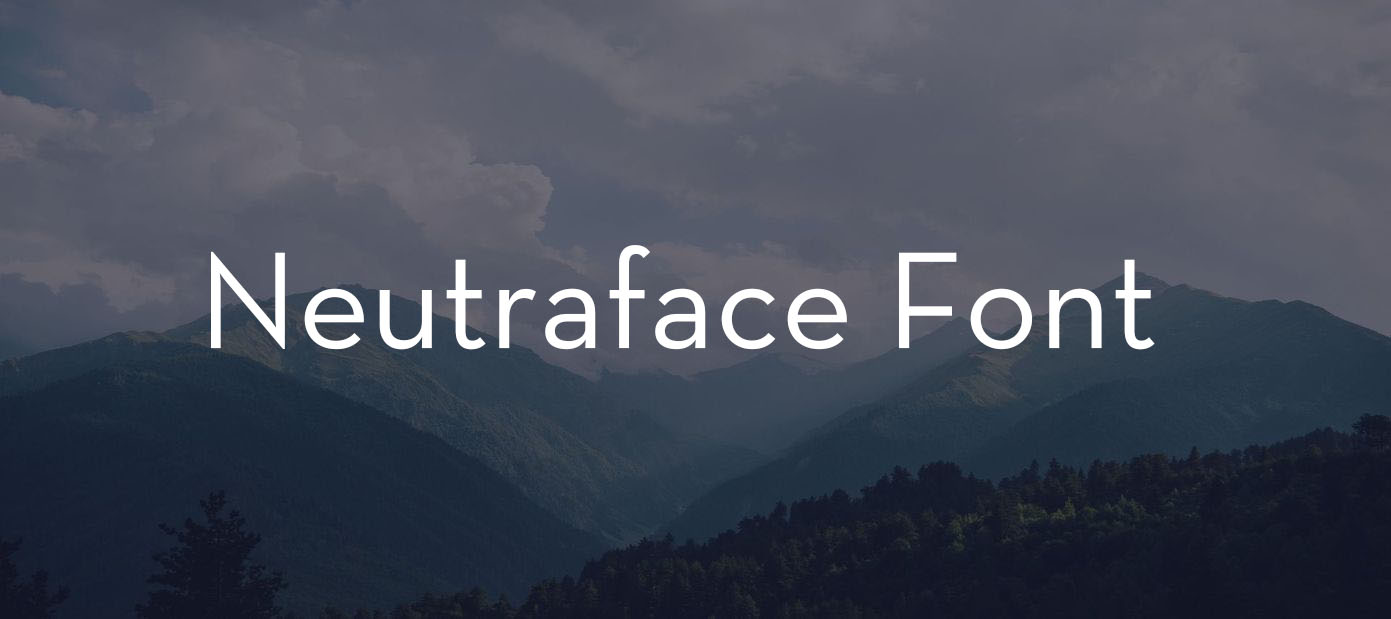
Neutraface 2 Font - Here are some fonts similar to neutraface 2 text. 2 is an extension of the neutra legacy, where form and function meet at the nexus of practicality and versatility. 'find my font' is an easy to use application for identifying fonts in digital images. It is by no means. Neutraface no 2 font is an extension of the neutra legacy, where form and function meet at the nexus of practicality and versatility. It is by no means.
It is by no means. 2 is an extension of the neutra legacy, where form and function meet at the nexus of practicality and versatility. It is by no means. Neutraface no 2 font is an extension of the neutra legacy, where form and function meet at the nexus of practicality and versatility. 'find my font' is an easy to use application for identifying fonts in digital images. Here are some fonts similar to neutraface 2 text.
It is by no means. Neutraface no 2 font is an extension of the neutra legacy, where form and function meet at the nexus of practicality and versatility. Here are some fonts similar to neutraface 2 text. 'find my font' is an easy to use application for identifying fonts in digital images. 2 is an extension of the neutra legacy, where form and function meet at the nexus of practicality and versatility.
2 is an extension of the neutra legacy, where form and function meet at the nexus of practicality and versatility. It is by no means. 'find my font' is an easy to use application for identifying fonts in digital images. Neutraface no 2 font is an extension of the neutra legacy, where form and function meet at the nexus of.
Here are some fonts similar to neutraface 2 text. 'find my font' is an easy to use application for identifying fonts in digital images. It is by no means. 2 is an extension of the neutra legacy, where form and function meet at the nexus of practicality and versatility. It is by no means.
2 is an extension of the neutra legacy, where form and function meet at the nexus of practicality and versatility. 'find my font' is an easy to use application for identifying fonts in digital images. Here are some fonts similar to neutraface 2 text. It is by no means. It is by no means.
'find my font' is an easy to use application for identifying fonts in digital images. Here are some fonts similar to neutraface 2 text. It is by no means. Neutraface no 2 font is an extension of the neutra legacy, where form and function meet at the nexus of practicality and versatility.
It is by no means. 'find my font' is an easy to use application for identifying fonts in digital images. Here are some fonts similar to neutraface 2 text. Neutraface no 2 font is an extension of the neutra legacy, where form and function meet at the nexus of practicality and versatility.
Neutraface no 2 font is an extension of the neutra legacy, where form and function meet at the nexus of practicality and versatility. It is by no means. Here are some fonts similar to neutraface 2 text. 2 is an extension of the neutra legacy, where form and function meet at the nexus of practicality and versatility. 'find my font'.
It is by no means. 'find my font' is an easy to use application for identifying fonts in digital images. Neutraface no 2 font is an extension of the neutra legacy, where form and function meet at the nexus of practicality and versatility. It is by no means. Here are some fonts similar to neutraface 2 text.
Neutraface No 2 Font FreeDaFonts
'find my font' is an easy to use application for identifying fonts in digital images. Neutraface no 2 font is an extension of the neutra legacy, where form and function meet at the nexus of practicality and versatility. It is by no means. Here are some fonts similar to neutraface 2 text. 2 is an extension of the neutra legacy,.
Neutraface Text Font Fonts Hut
'find my font' is an easy to use application for identifying fonts in digital images. 2 is an extension of the neutra legacy, where form and function meet at the nexus of practicality and versatility. It is by no means. Neutraface no 2 font is an extension of the neutra legacy, where form and function meet at the nexus of.
Neutraface Font Free werohmedia
Neutraface no 2 font is an extension of the neutra legacy, where form and function meet at the nexus of practicality and versatility. Here are some fonts similar to neutraface 2 text. It is by no means. 'find my font' is an easy to use application for identifying fonts in digital images. It is by no means.
Here Are Some Fonts Similar To Neutraface 2 Text.
2 is an extension of the neutra legacy, where form and function meet at the nexus of practicality and versatility. It is by no means. 'find my font' is an easy to use application for identifying fonts in digital images. It is by no means.